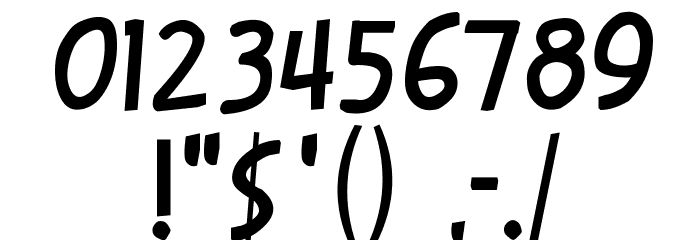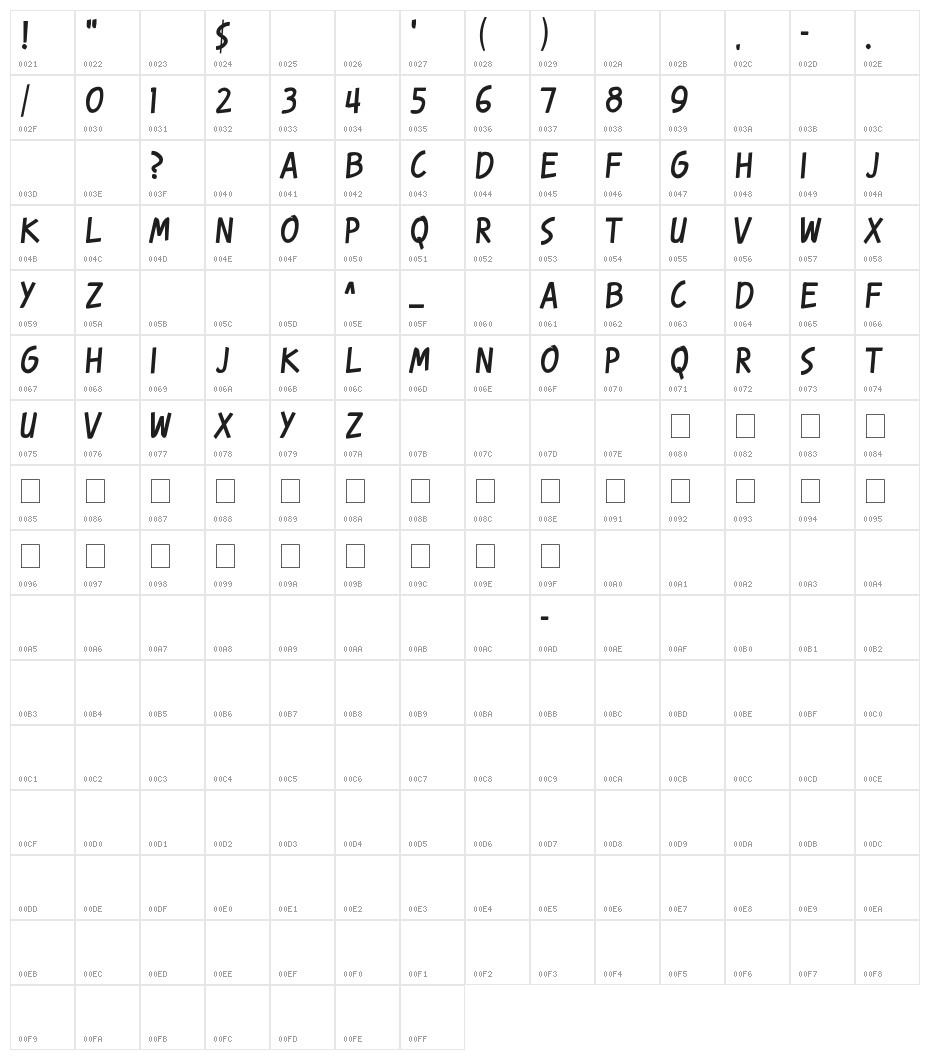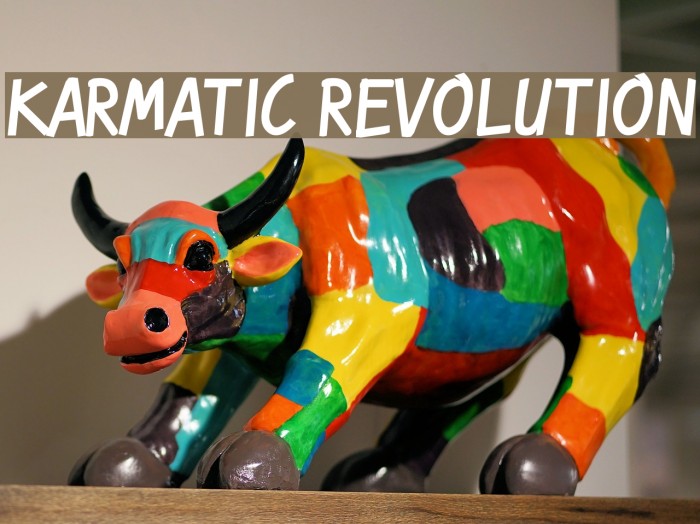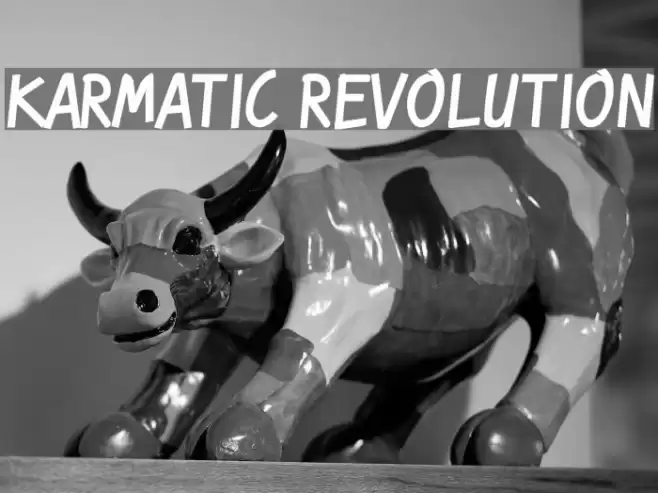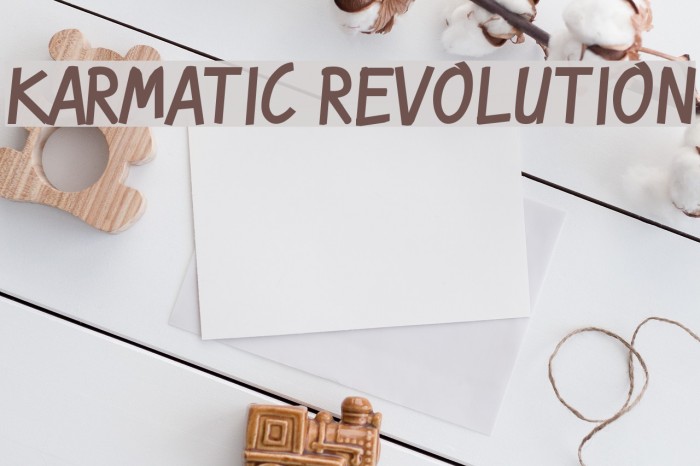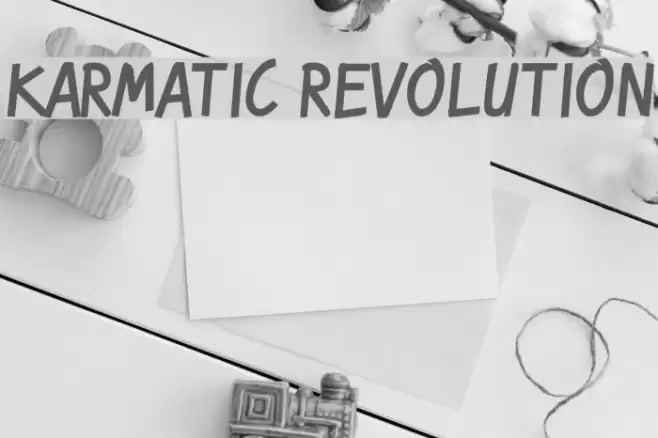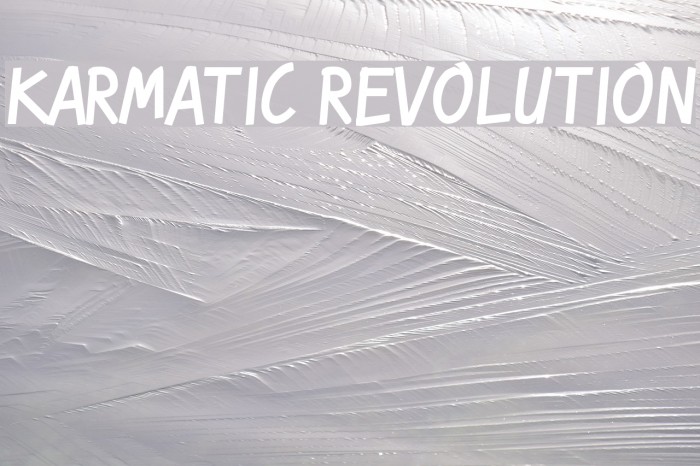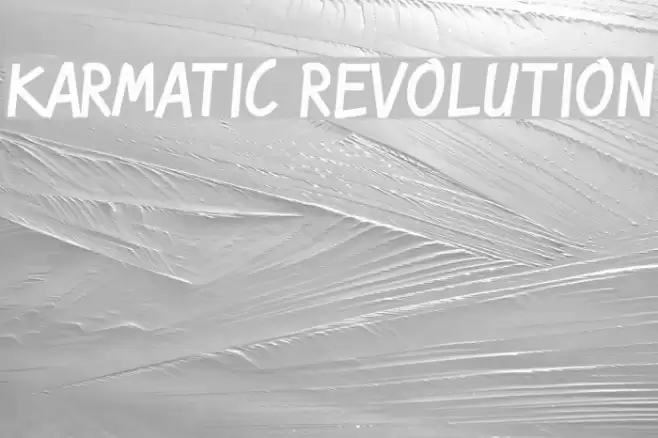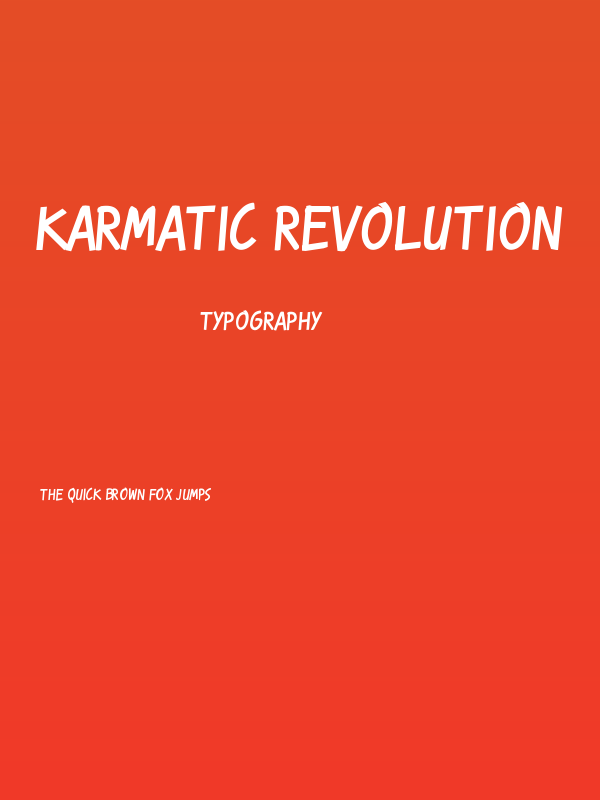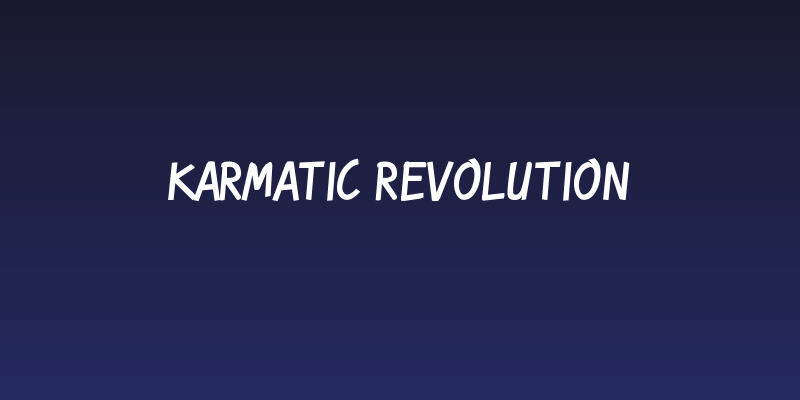
Karmatic Revolution Font
Karmatic Revolution Description
This font features a playful and dynamic handwritten style, characterized by its slightly slanted and bold strokes. The letters are crafted with a casual flair, giving them a lively and energetic appearance. The uppercase and lowercase letters maintain a consistent style, with rounded edges and a slight tilt that adds to the informal feel. Numbers and special characters are designed to match the overall aesthetic, ensuring a cohesive look across all text. The font's unique charm makes it suitable for projects that require a personal touch or a sense of fun and creativity.
| Proposed Projects | Ideal for greeting cards, children's books, playful branding, and casual invitations. |